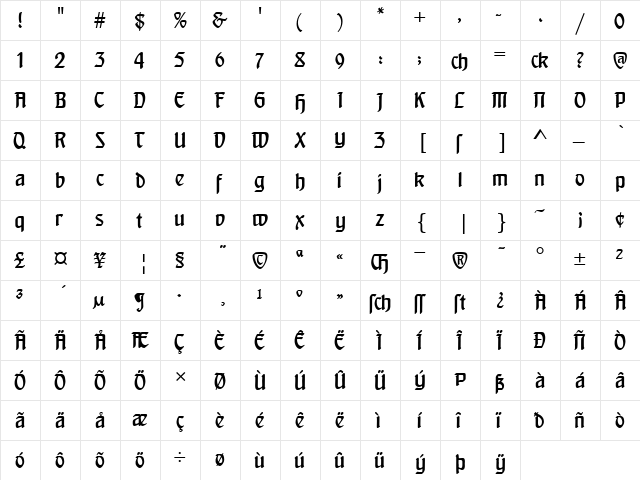
DS Behrensschrift Regular
| Foundry | Typographer Mediengestaltung |
| Designer | Peter Behrens (1899) |
Design Context for DS Behrensschrift Typeface
DS Behrensschrift takes a measured approach to typography — its balanced proportions and neutral character make it a reliable workhorse for both digital and print work.